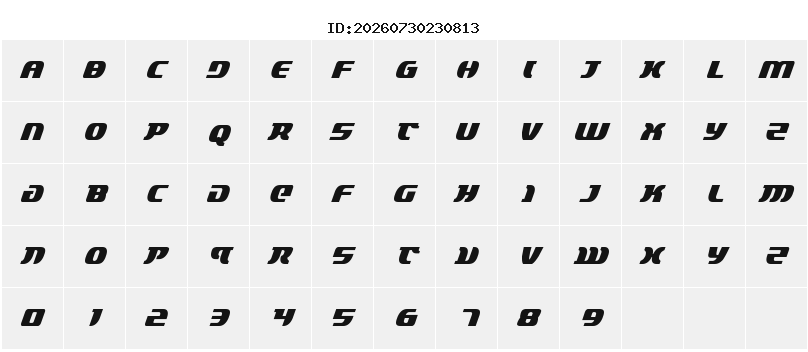
Lord of the Sith Condensed Italic Preview
• Font Name: Lord of the Sith Condensed Italic
• Font Style: Condensed Italic
• Full Font Name: Lord of the Sith Condensed Italic
About Lord of the Sith Condensed Italic.ttf
Lord of the Sith Condensed Italic.ttf is a modern, elegant sans-serif font designed for ultimate readability and visual harmony. Perfect for branding, headlines, web design, and print materials.